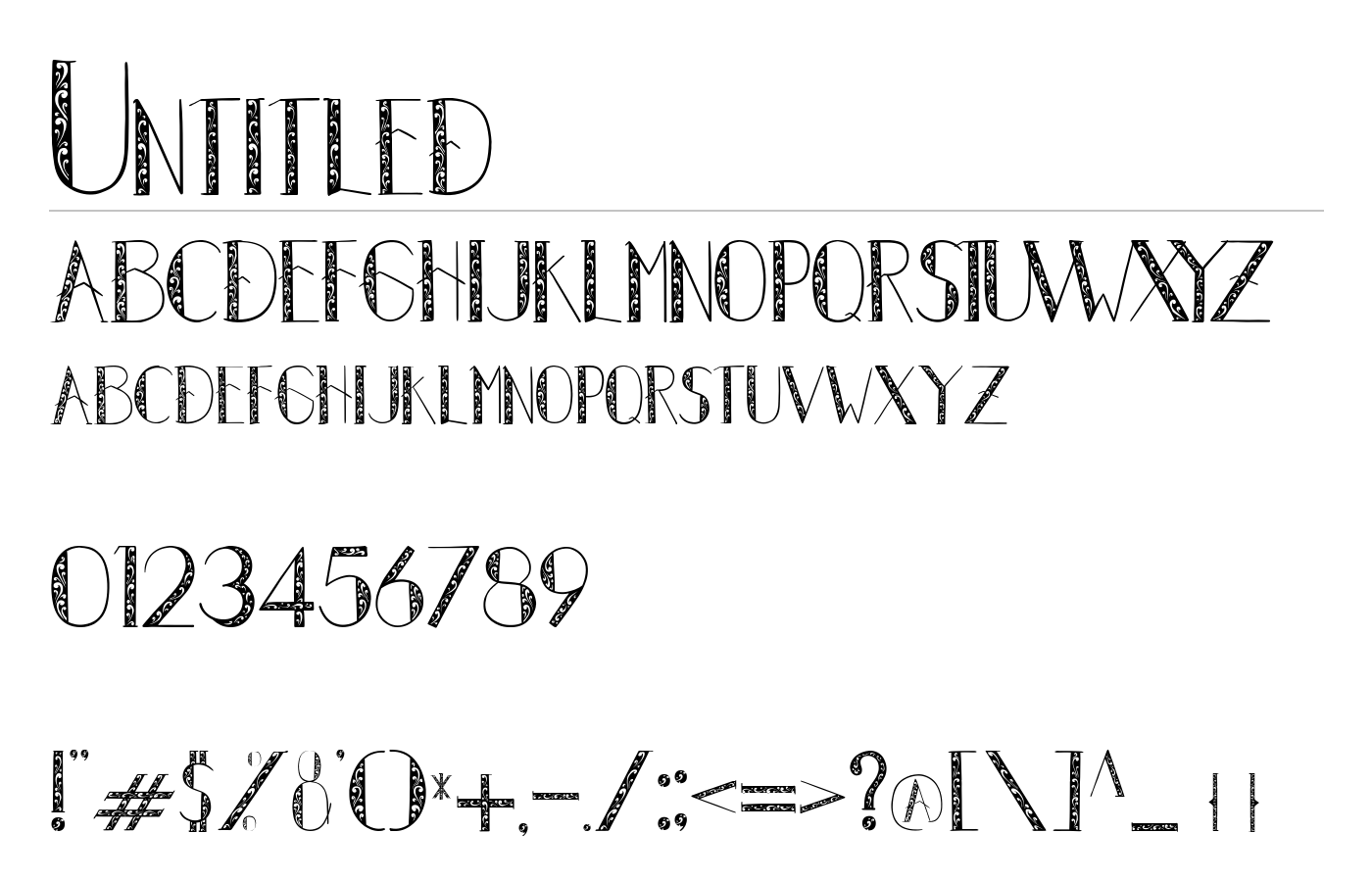
Untitled Font is a decorative serif typeface characterized by its tall, narrow letterforms and intricate, floral-inspired patterning within the strokes. Its high contrast and elegant, slightly whimsical style make it ideal for artistic and vintage-themed designs, where it can add a touch of sophistication and charm. This font works best in display uses such as logos, headlines, and packaging where its detailed ornamentation can be fully appreciated.
Untitled Font